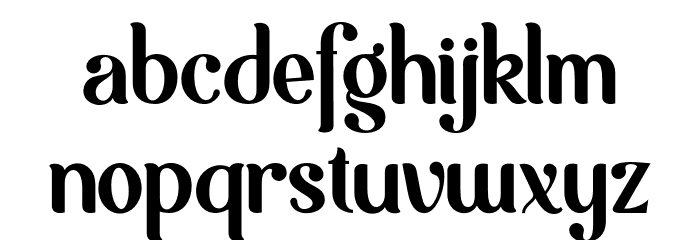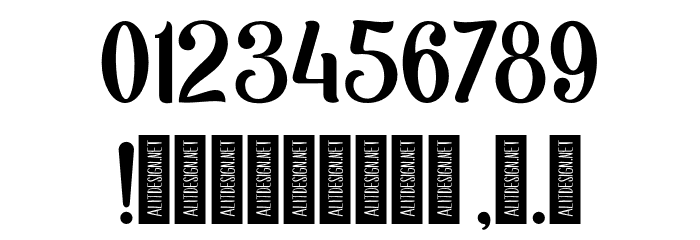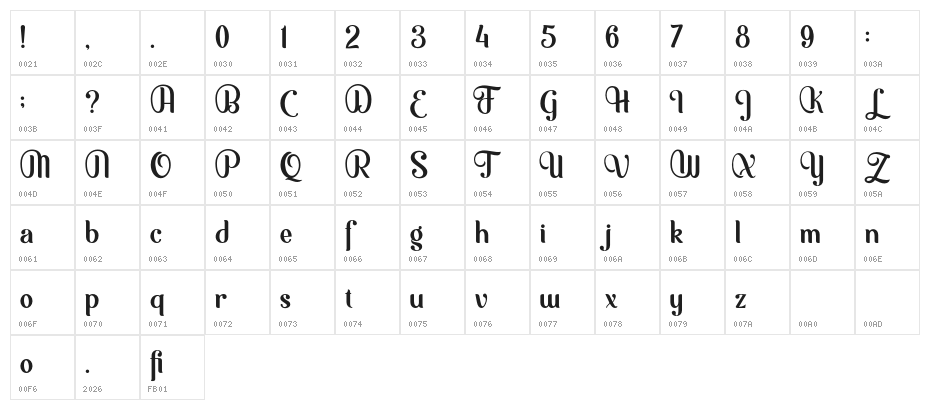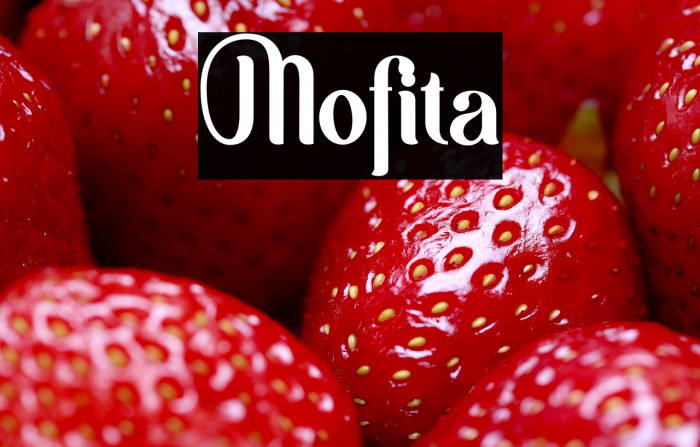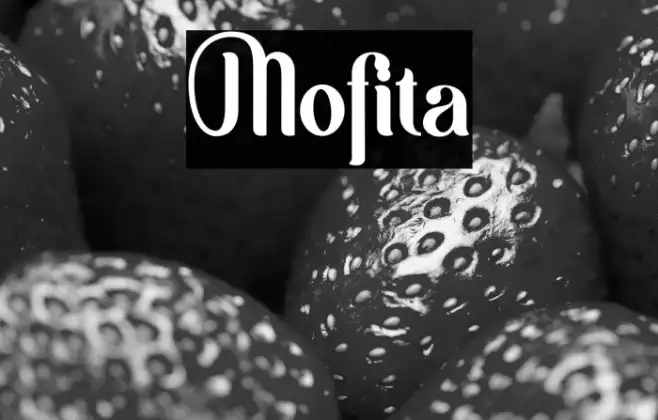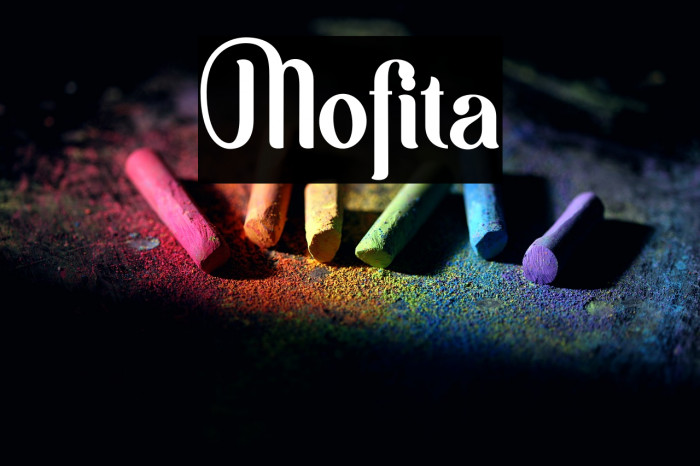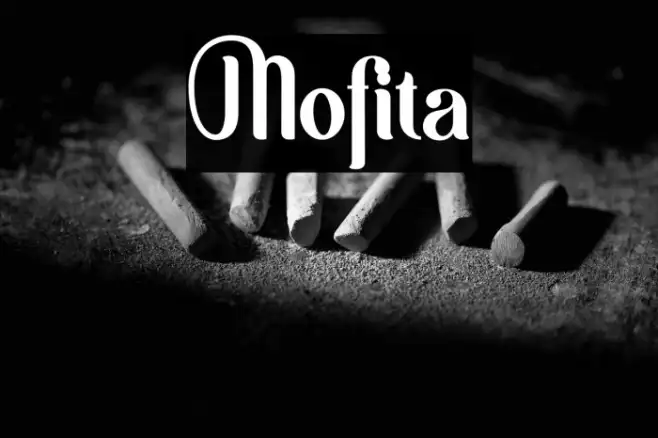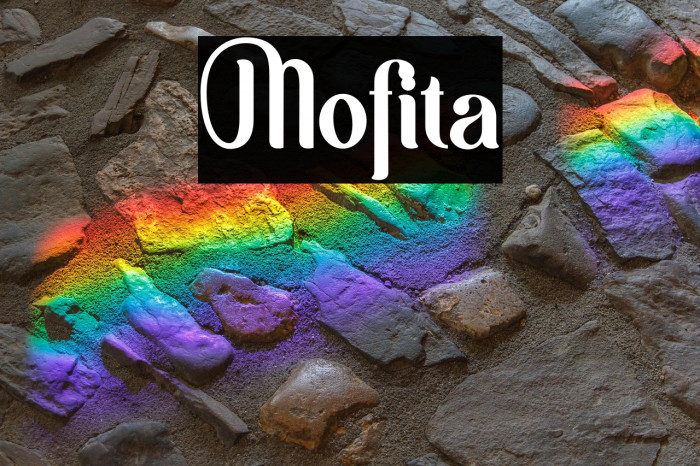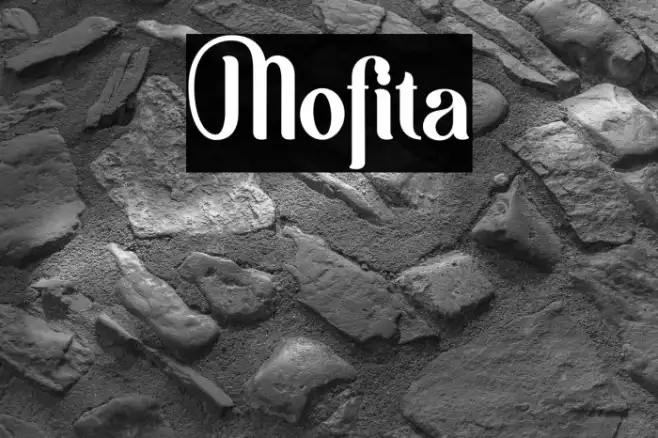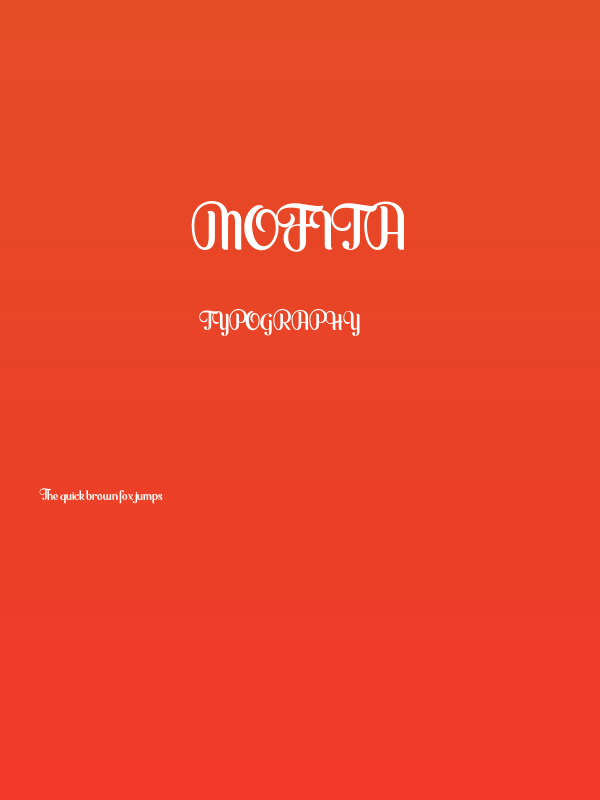
Mofita Font
This font features a unique blend of modern and vintage styles, characterized by its bold and decorative letterforms. The uppercase letters exhibit a playful yet elegant design with distinctive curves and flourishes, while the lowercase letters maintain a consistent style with a slightly more subdued flair. The numbers are bold and easily readable, complementing the overall aesthetic. Special characters are designed with the same attention to detail, adding a cohesive look to the entire set. This font's artistic nature makes it suitable for creative and eye-catching designs.
A bold, decorative font with a modern vintage flair, featuring playful curves and elegant flourishes.
- Overall Style: Modern Vintage